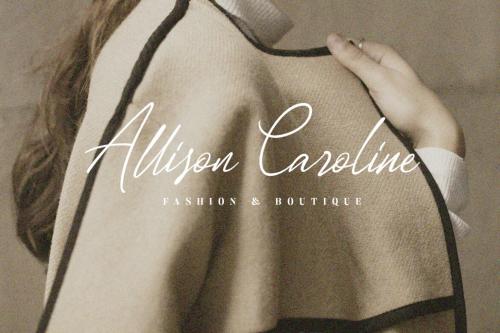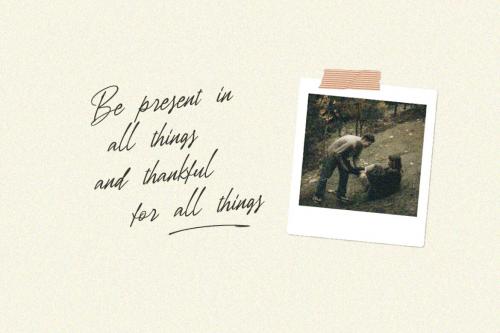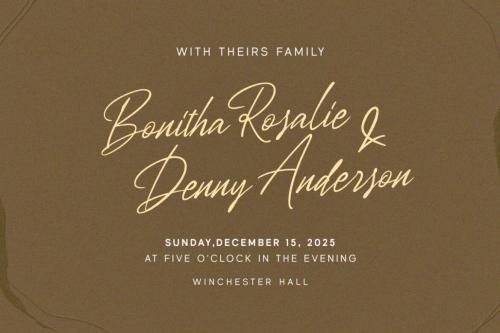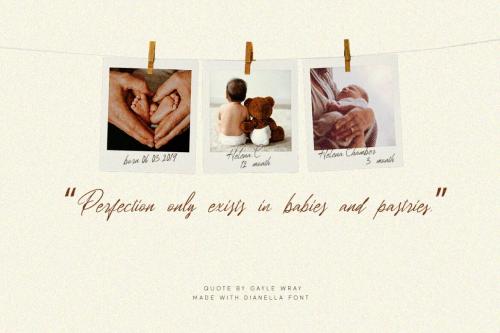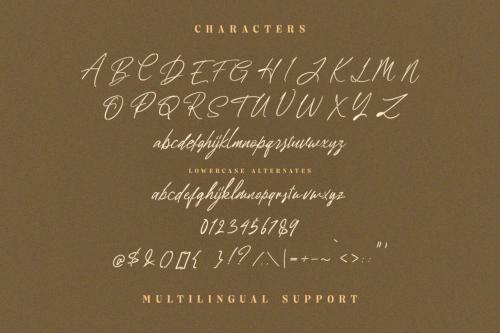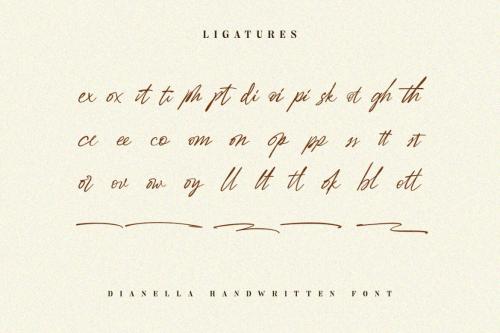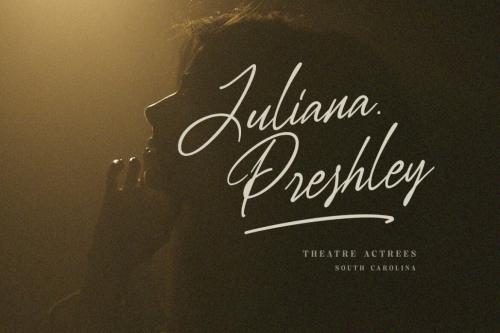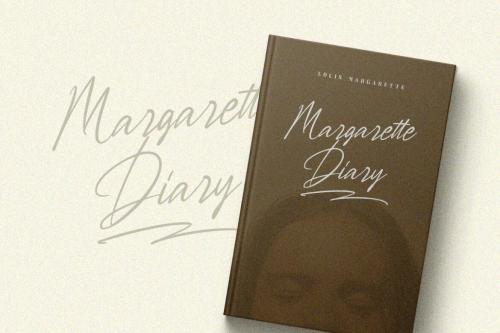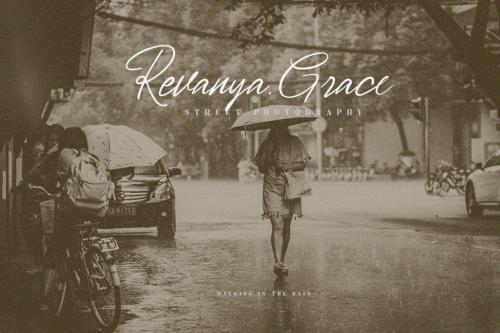
Deeezy - Dianella - Handwritten Script
Dianella is a beauty script with many ligatures. This font perfectly made to be applied especially in logo, and the other various formal forms such as invitations, labels, logos, magazines, books, greeting u002F wedding cards, packaging, fashion, make up, stationery, novels, labels or any type of advertising purpose.